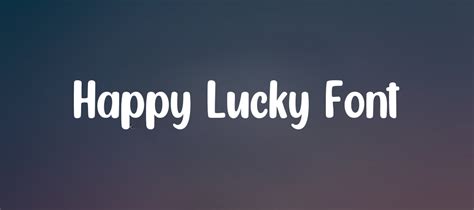
Hey guys! Today, we’re diving into something super fun and totally free – the Happy Lucky font ! If you’re on the hunt for a typeface that screams joy, celebration, and a touch of playful charm, you’ve hit the jackpot. This font is seriously a game-changer for all your creative projects, whether you’re designing party invitations, sprucing up social media graphics, or just want to add a little oomph to your personal projects. We’ll break down why this font is such a winner, where you can snag it for free, and how you can use it to make your designs pop.
Why the Happy Lucky Font is Your New Best Friend
So, what’s the big deal about the Happy Lucky font ? Well, first off, its name says it all! It’s designed to evoke feelings of happiness, luck, and pure unadulterated fun. Imagine a font that bounces, smiles, and practically dances on the page – that’s Happy Lucky for you. It’s not just a collection of letters; it’s an attitude . This font often features a slightly irregular baseline, playful curves, and maybe even some whimsical flourishes that make each character feel unique and full of personality. It’s the kind of font that instantly makes whatever you put on screen feel more approachable and exciting. Think of it as the visual equivalent of a confetti cannon going off – bright, cheerful, and guaranteed to get people smiling. When you’re aiming for a vibe that’s casual, friendly, and utterly delightful, this font is your go-to. It’s perfect for adding that special touch to anything that needs a burst of positive energy. We’re talking about making your audience feel good just by looking at your creations. That’s the power of a well-chosen, character-filled font like Happy Lucky!
The Versatility Factor: More Than Just a Pretty Face
Now, you might be thinking, “Okay, it looks fun, but can I actually use it for stuff?” And the answer is a resounding YES ! The Happy Lucky font is surprisingly versatile. While it shines brightest in headlines and short bursts of text where its personality can really shine, don’t underestimate its potential for longer passages either. Many designers opt for this font for event invitations – think birthdays, weddings, anniversaries, or just casual get-togethers. The festive nature of the font perfectly complements the celebratory mood. Social media is another huge playground for Happy Lucky. Imagine eye-catching Instagram stories, Facebook posts, or Pinterest graphics that grab attention instantly. Its playful aesthetic makes your content stand out in a crowded feed. Beyond events and social media, consider using it for branding for small businesses that want a friendly and approachable image. Cafes, bakeries, children’s clothing brands, or creative studios could all benefit from the warm and inviting feel this font exudes. Even for personal projects like scrapbooking, journaling, or creating custom greeting cards, Happy Lucky adds that personal, heartfelt touch. The key is to pair it strategically. For longer texts, you might use Happy Lucky for a catchy title and then pair it with a simpler, more readable sans-serif or serif font for the body copy. This creates a beautiful contrast and ensures legibility while still allowing the personality of Happy Lucky to shine through. It’s all about balance, guys, and this font gives you the tools to play with that balance in fun and effective ways. So, don’t be afraid to experiment! The more you use it, the more you’ll discover its hidden talents.
Creative Ways to Use the Happy Lucky Font
Now that you’ve got your hands on the Happy Lucky font and understand the licensing, let’s talk about putting it to work! The possibilities are genuinely endless, but here are a few ideas to get your creative juices flowing. For starters, party invitations are a no-brainer. Use Happy Lucky for the main event details – the date, time, and location – and perhaps a fun script for the title like “You’re Invited!” or “Let’s Celebrate!”. Pair it with a simple, clean font for RSVP details to ensure readability. Social media banners and post graphics are another fantastic application. Create vibrant graphics for Instagram, Facebook, or Pinterest that immediately grab attention. Think about using Happy Lucky for promotional announcements for sales, new products, or special events. Its inherent cheerfulness can make even a routine announcement feel exciting. Product packaging for small businesses can get a major boost. Imagine custom labels for handmade soaps, candles, or baked goods. Happy Lucky can add a personal, artisanal touch that makes your products stand out on the shelves or online. Greeting cards and gift tags are perfect for this font. Whether you’re making them yourself or designing them for sale, Happy Lucky adds that special, heartfelt message that says “I care.” Children’s book titles or educational materials could also benefit. The playful nature of the font can make learning more engaging and fun for younger audiences. For your personal branding as a creative individual, using Happy Lucky in your portfolio or website header can convey a friendly, approachable, and enthusiastic personality. Just remember the balance we talked about – maybe use it for your name or a tagline, and a more neutral font for your portfolio descriptions. Don’t forget DIY projects ! Think custom mugs, t-shirts, tote bags, or even wall decals. Happy Lucky can turn a simple item into a personalized statement piece. The key is to use it where you want to inject personality, excitement, and a sense of celebration. Experiment with different sizes, colors, and layouts to see what works best for each specific project. The more you play with it, the more you’ll fall in love with its charm!
Mastering the Art of Pairing Fonts: Tips for Happy Lucky
Using a standout font like Happy Lucky is awesome, but sometimes, you need other fonts to play nicely with it. This is where font pairing comes in, and guys, it’s a skill that can seriously elevate your designs. When pairing Happy Lucky, the main goal is to create contrast and harmony. Think of it like a good song – you need different instruments to create a rich sound. The most common and effective pairing is with a simple, highly legible sans-serif font . Think fonts like Open Sans, Lato, Montserrat, or Roboto. These fonts are clean, straightforward, and don’t compete with Happy Lucky’s personality. Use Happy Lucky for your main headlines, titles, or key call-to-action phrases, and then use the sans-serif for the body text, descriptions, or smaller details. This ensures that your message is easily readable while still getting the impact of Happy Lucky. Another option is pairing it with a classic serif font . Fonts like Garamond, Georgia, or Times New Roman (use sparingly!) can offer a more traditional feel that contrasts nicely with Happy Lucky’s modern playfulness. This pairing can work well for certain types of branding or invitations where you want a mix of fun and elegance. Avoid pairing Happy Lucky with too many other decorative or script fonts. Trying to mix multiple high-personality fonts can lead to a cluttered and chaotic design. Stick to one main display font (Happy Lucky in this case) and one or two complementary fonts that serve specific purposes, like readability or a touch of contrast. Also, consider the weight and size . If Happy Lucky is used in a bold, large size for a headline, your secondary font should ideally be in a lighter weight and smaller size for body text. This creates a visual hierarchy that guides the reader’s eye. Don’t be afraid to experiment with different combinations! Sometimes the best pairings come from unexpected places. Play around with different font families, weights, and sizes until you find a combination that feels just right for your project and communicates the intended message effectively. Remember, the goal is to make Happy Lucky shine while ensuring your overall design is cohesive and professional.
Conclusion: Spread the Joy with Happy Lucky!
So there you have it, my friends! The Happy Lucky font is a fantastic, free resource that brings an incredible amount of joy, personality, and festive flair to any design project. Whether you’re crafting invitations that sparkle, social media posts that pop, or branding that radiates warmth, this font is a versatile tool in your creative arsenal. Remember to always check the font licenses to ensure you’re using it appropriately, whether for personal enjoyment or commercial ventures. Experiment with different pairings, play with layouts, and let the inherent cheerfulness of Happy Lucky inspire you. Go ahead, download it, and start spreading the happiness! Happy designing, everyone!